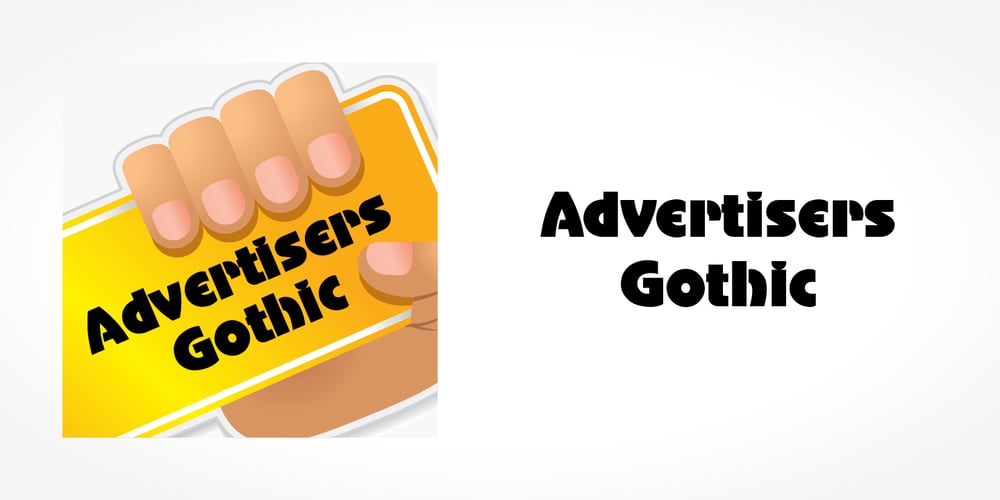
Advertisers Gothic Font Family was designed by published by SoftMaker. Advertisers Gothic contains 2 styles and family package options. With Advertisers Gothic, SoftMaker revives a 1917 design by Robert Wiebking. Inspired by Art Nouveau (Jugendstil) lettering, this typeface is as fresh as it was back then and is well-suited for advertising and display work.